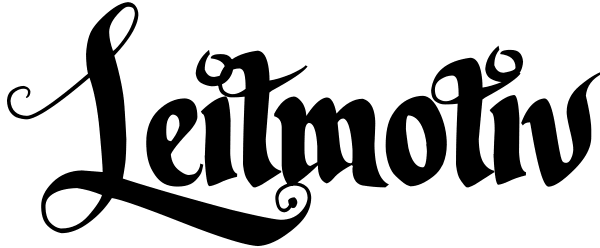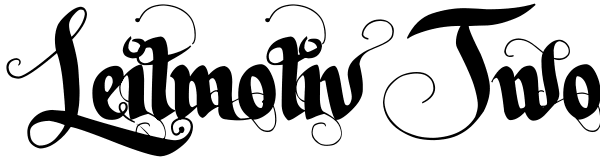
Leitmotiv
Leitmotiv is a handwritten calligraphy font which can be used for invitations, greeting cards, posters, advertising, weddings, books, menus etc. Language support includes Western, Central and Eastern European character sets, as well as Baltic and...
Leitmotiv
Leitmotiv Two